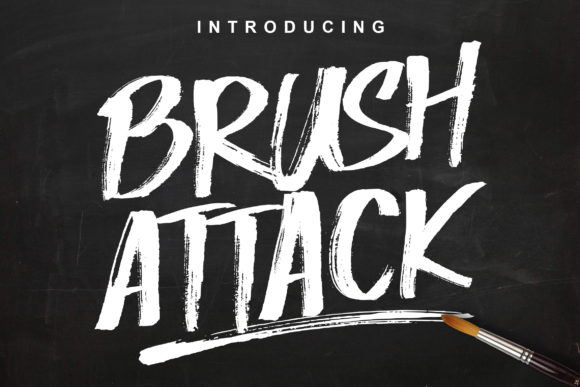
The Brush Attack Font: Adding a Unique Touch to Your Designs
I’ll never forget the time I was working on a project for a client who wanted a playful, hand-drawn look for their branding. I spent hours scouring the internet for the perfect font, but nothing seemed quite right. That was until I stumbled upon the Brush Attack font. Its natural, dry brush texture added a unique touch to my design that my client loved. In this article, I’ll share my experience with the Brush Attack font, including its features, how to use it, and some similar fonts you might enjoy.
An Honest Review of Brush Attack
- ✨ The Brush Attack font has a natural, hand-drawn feel that’s perfect for adding a personal touch to designs.
- ✅ It’s incredibly versatile and can be used for a wide range of projects, from logos and posters to clothing and more.
- 💫 The font comes with a range of OpenType features, including glyphs and stylistic alternates, which allow for endless customization options.
While the Brush Attack font is amazing, it’s not without its quirks. For example:
- ⚠️ Some users have reported that the font can be a bit tricky to read at small sizes, so it’s best to use it for headlines or titles rather than body text.
- 🤔 The font’s dry brush texture can sometimes make it difficult to distinguish between similar letters, such as “l” and “1”.
The Story Behind Brush Attack
The Brush Attack font was designed by a talented typographer who wanted to create a font that captured the essence of hand-drawn lettering. Inspired by the natural texture of dry brush strokes, the designer crafted a font that’s both playful and elegant. Today, Brush Attack is a popular choice among designers and crafters who want to add a unique touch to their work.
| Font Name | Brush Attack Font |
| Author | Lettersiro Co. |
Q: What is the Brush Attack font best used for?
A: The Brush Attack font is perfect for designs that need a playful, hand-drawn look, such as logos, posters, clothing, and more.
Q: Is Brush Attack a script font?
A: While Brush Attack has a hand-drawn feel, it’s not strictly a script font. It’s more of a display font that’s perfect for headlines and titles.